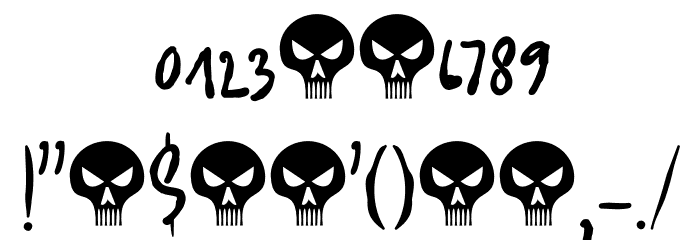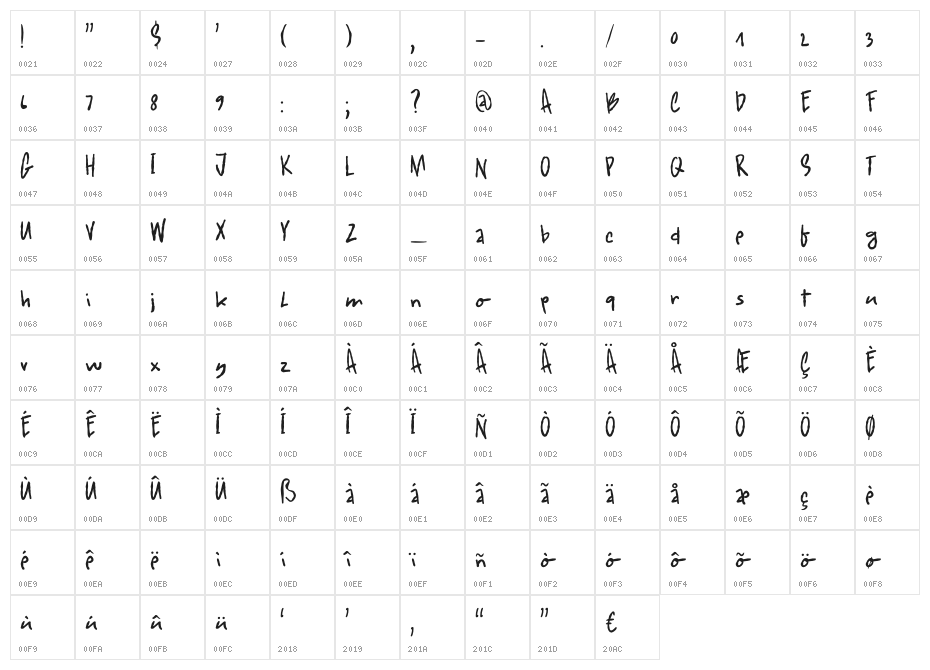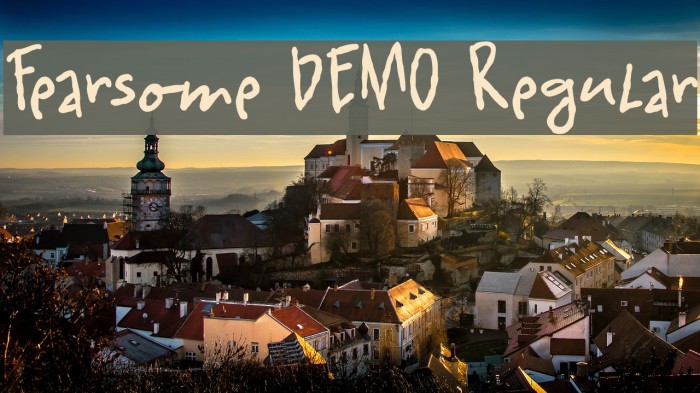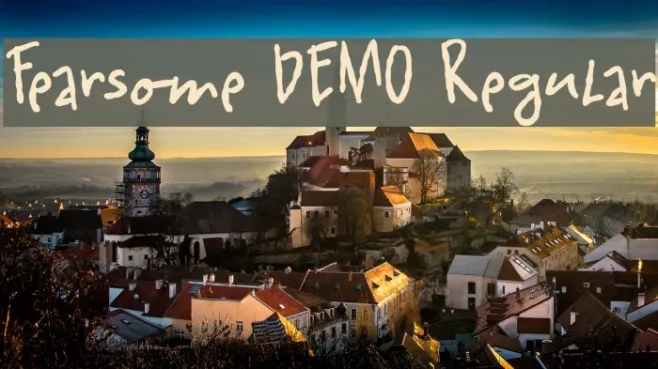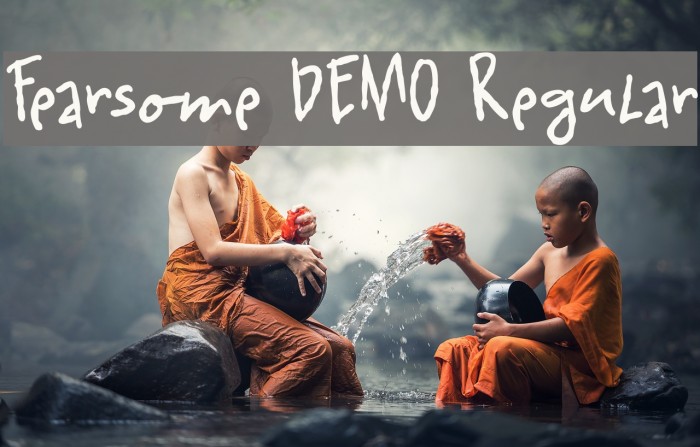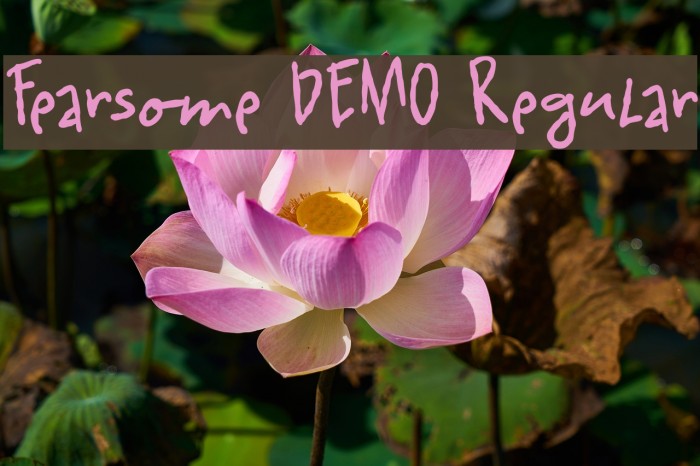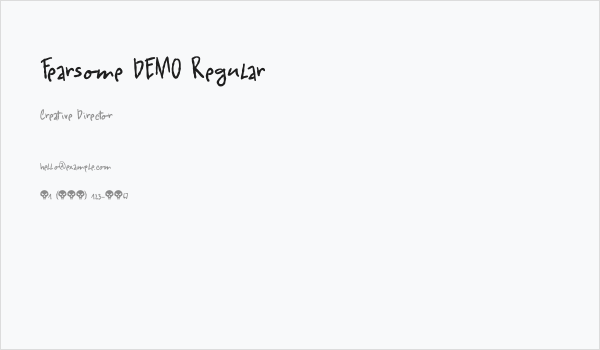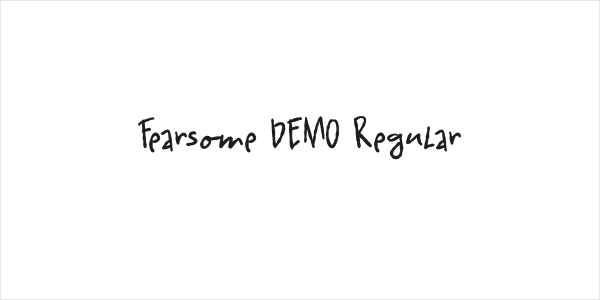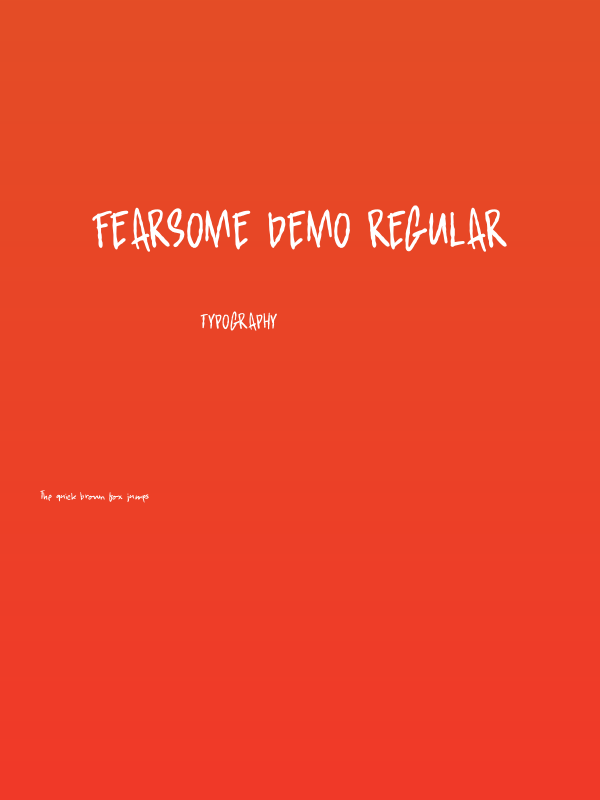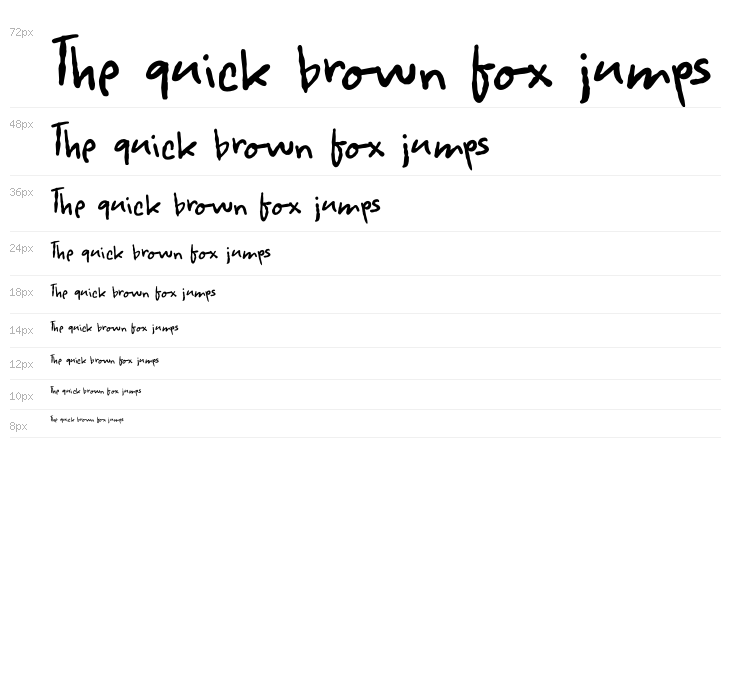
Fearsome DEMO Regular Font
Fearsome DEMO Regular Description
This font exudes a bold and edgy personality, characterized by its rough, hand-drawn appearance. The uppercase and lowercase letters maintain a consistent style, with jagged edges and irregular strokes that give it a raw, rebellious feel. The numbers and special characters follow the same aesthetic, with unique skull symbols replacing some of the numerals, adding a distinctive and daring touch. This font is perfect for projects that require a strong, impactful visual statement, such as posters, album covers, or branding for alternative or punk-themed events.
| Proposed Projects | Ideal for posters, album covers, branding for alternative or punk-themed events. |